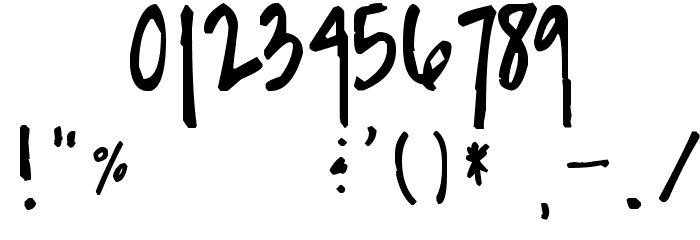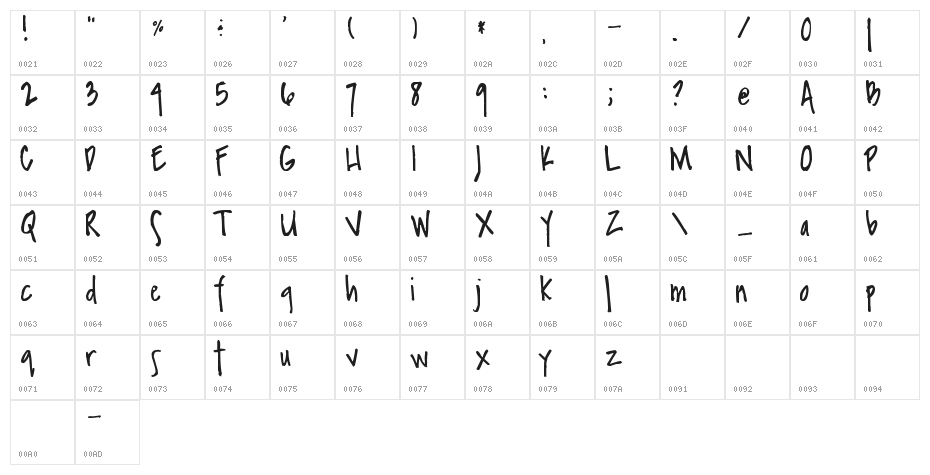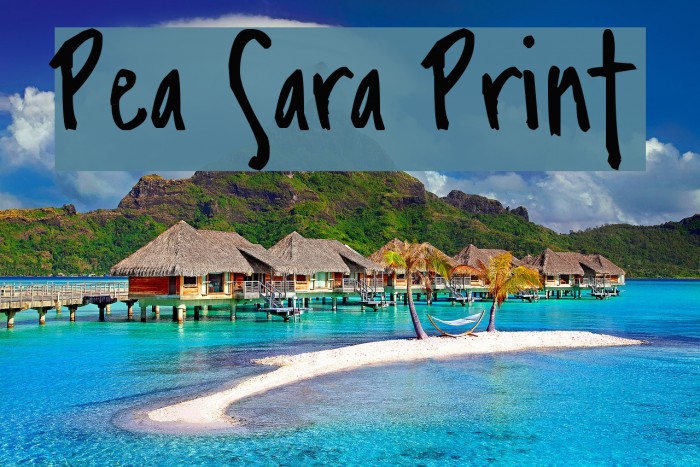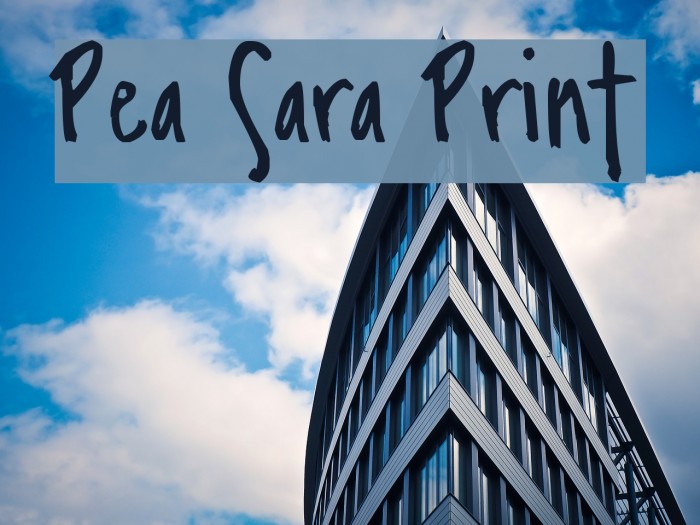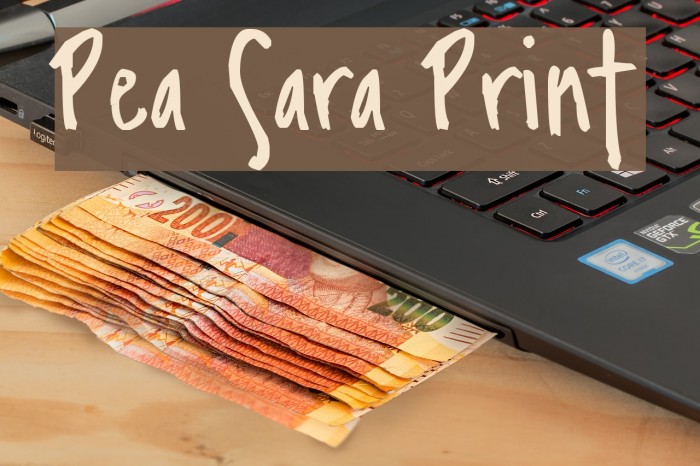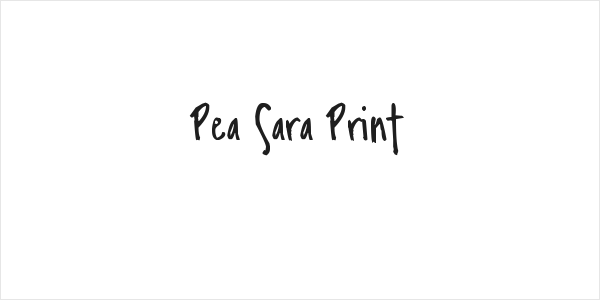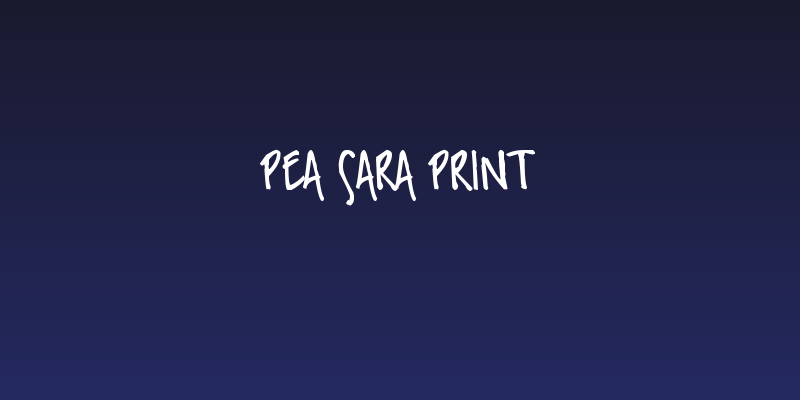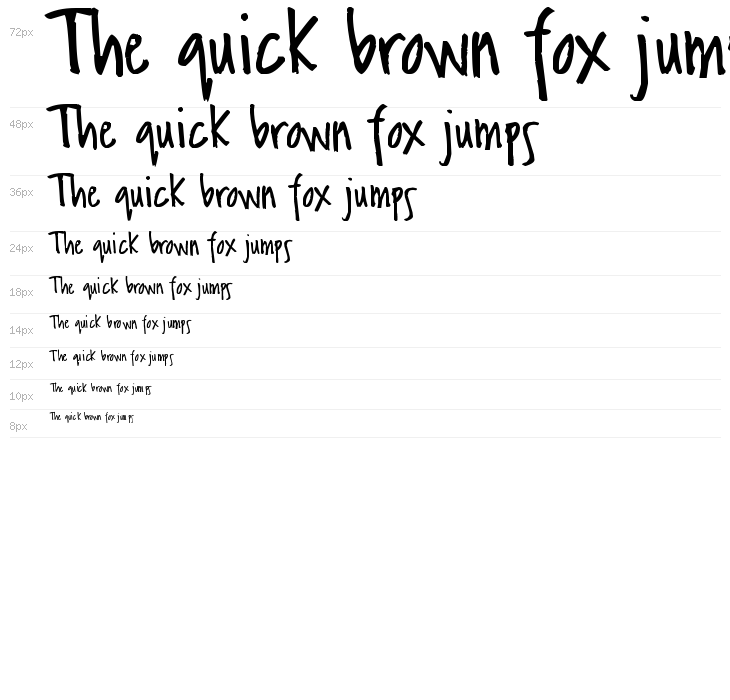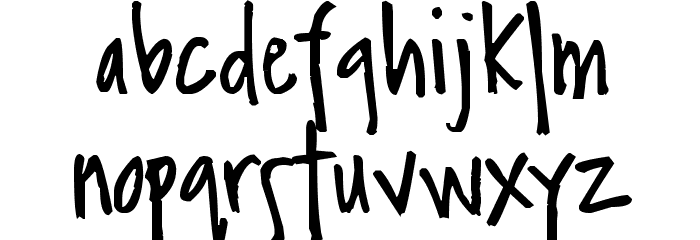
Pea Sara Print Font
Pea Sara Print Description
This font features a playful and casual handwritten style, characterized by its irregular and dynamic strokes. The letters have a natural flow, with varying heights and angles that give it a lively and informal appearance. The uppercase letters are bold and prominent, while the lowercase letters maintain a consistent yet relaxed feel. Numbers and special characters follow the same energetic style, making the font versatile for creative projects. The overall impression is friendly and approachable, suitable for designs that require a personal touch.
Overall StyleCasual
Use CaseHeadlines, Informal text, Creative projects
Proposed ProjectsIdeal for greeting cards, personal blogs, children's books, and informal branding.